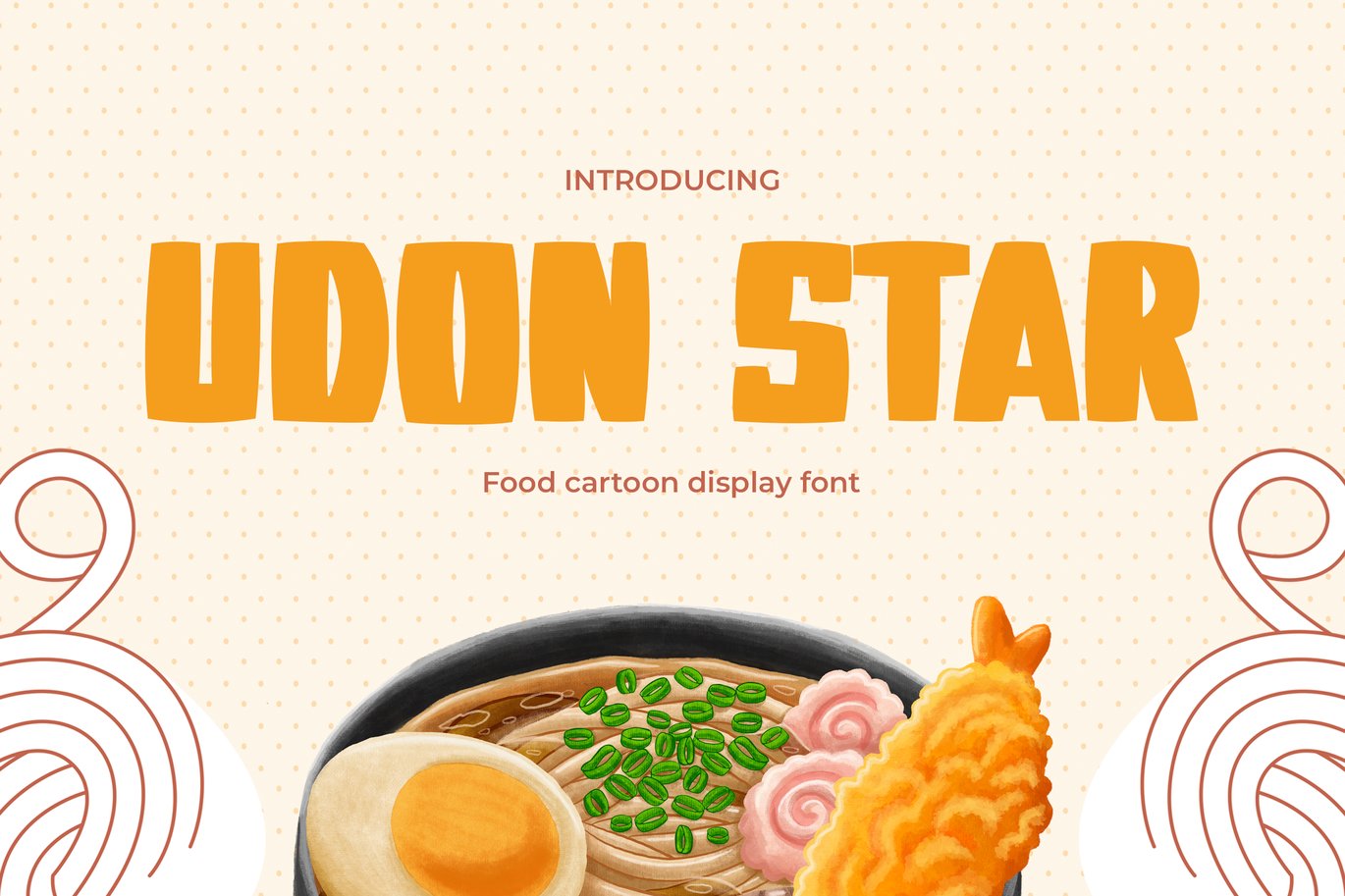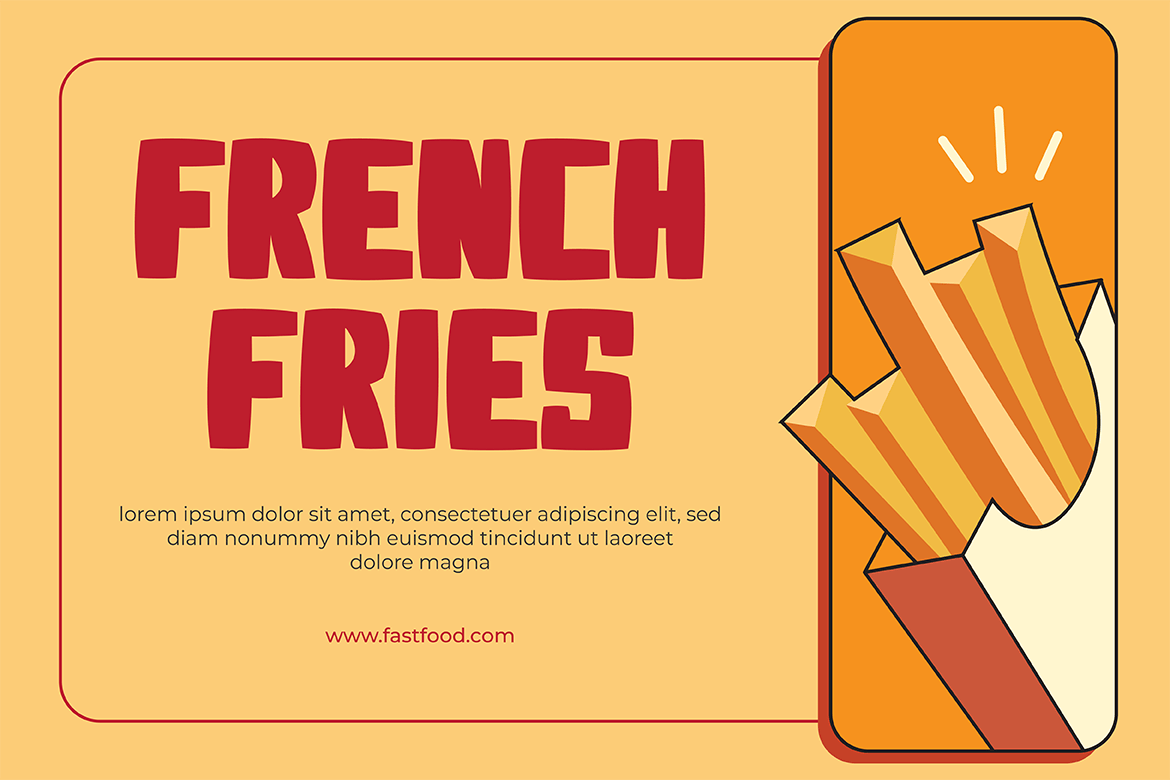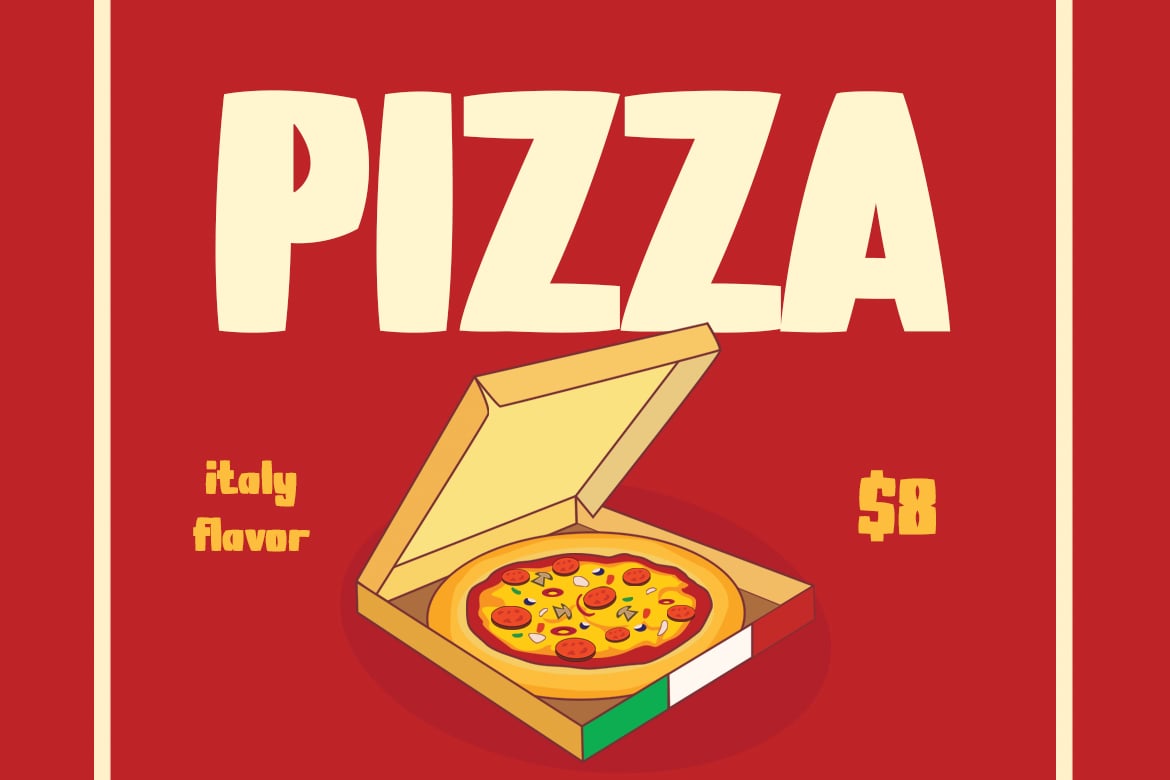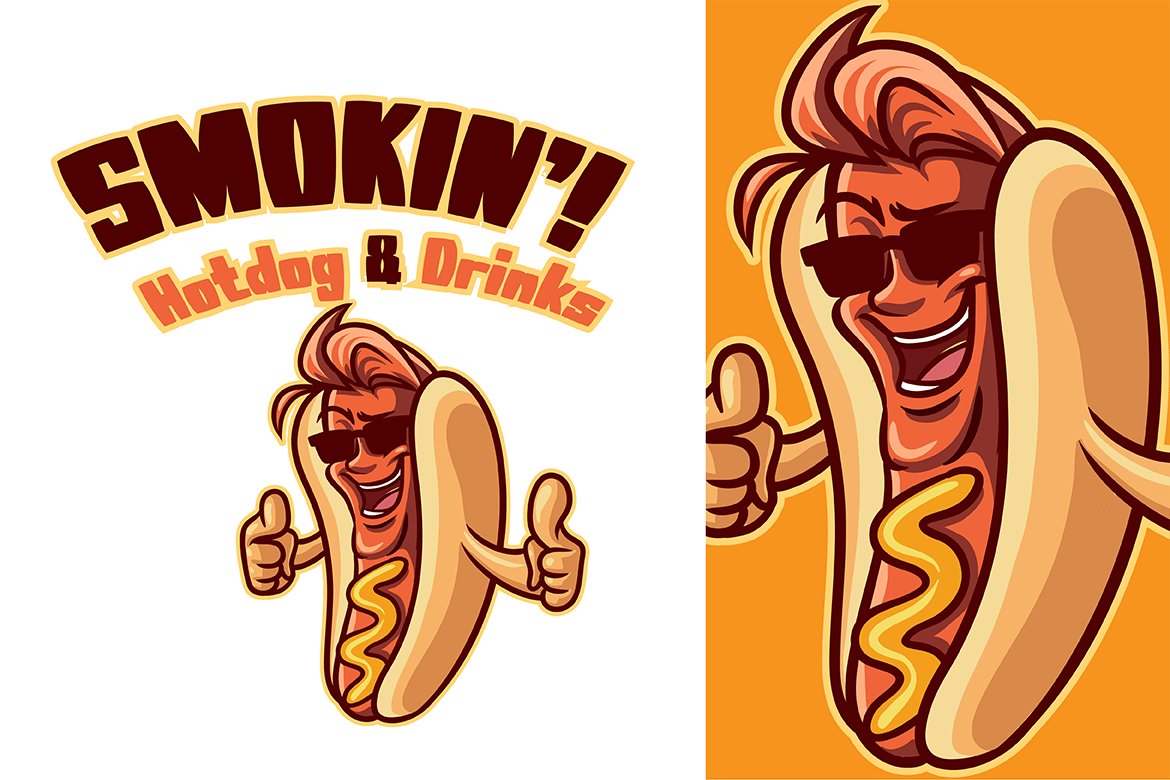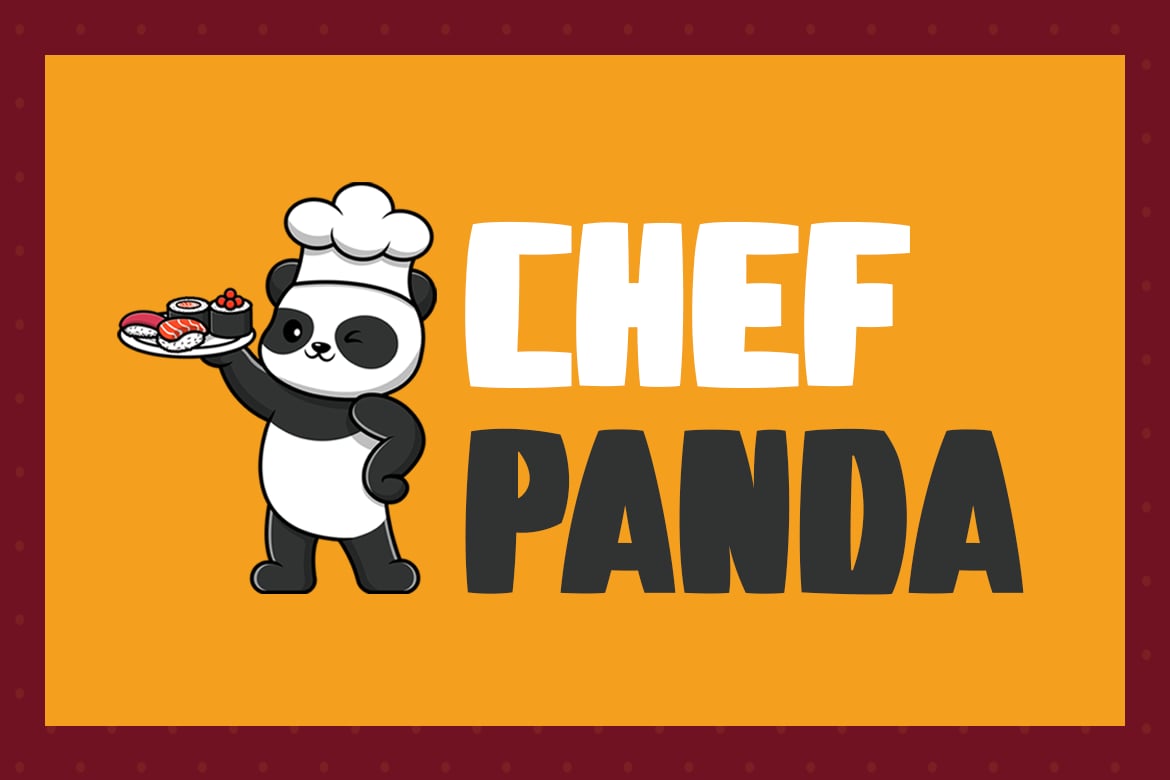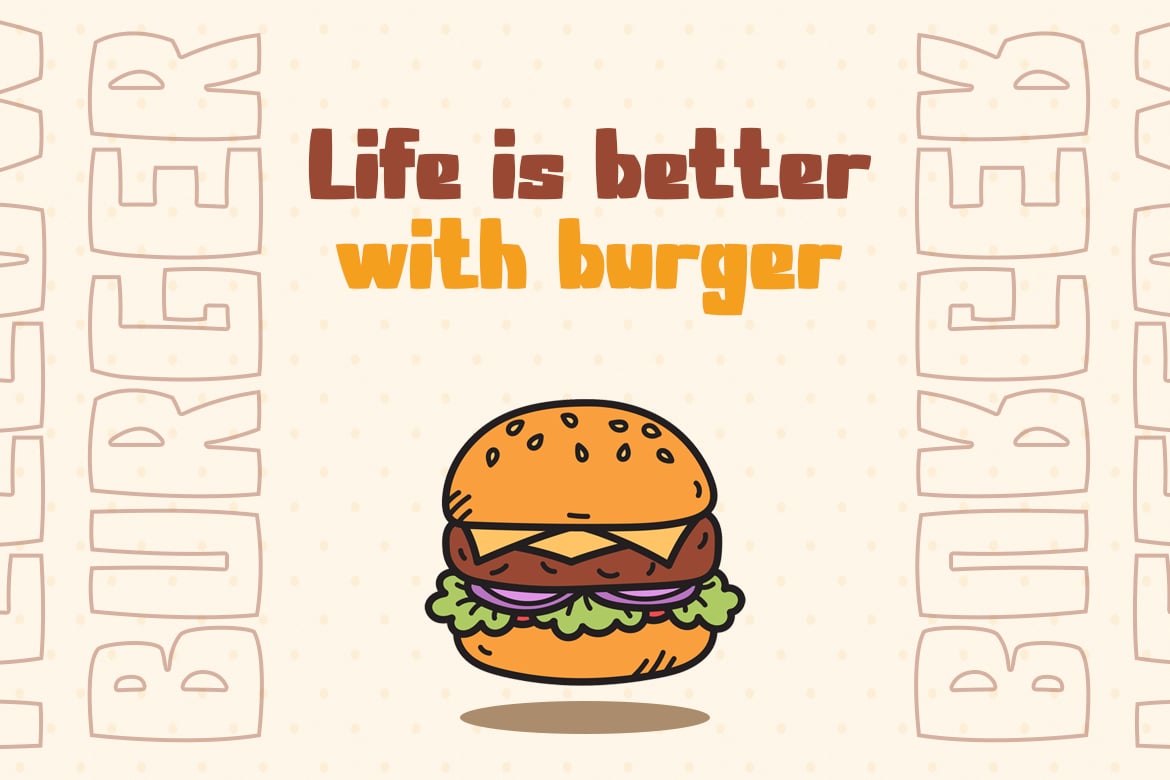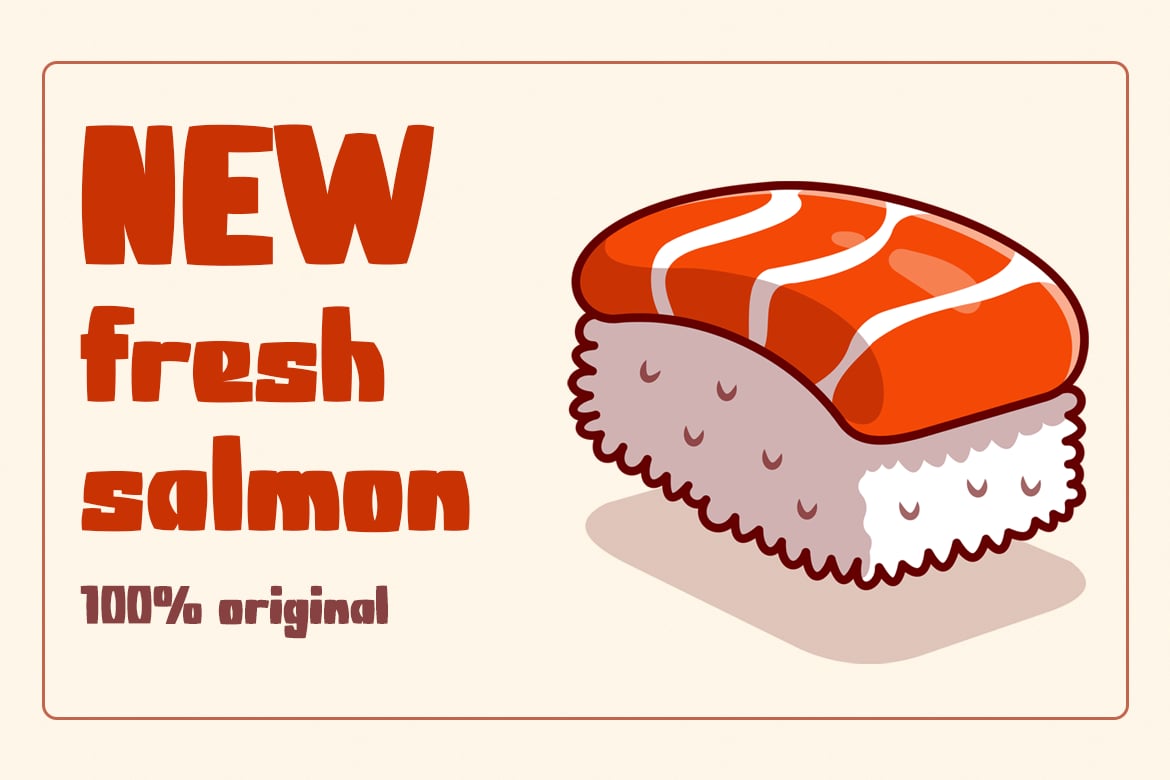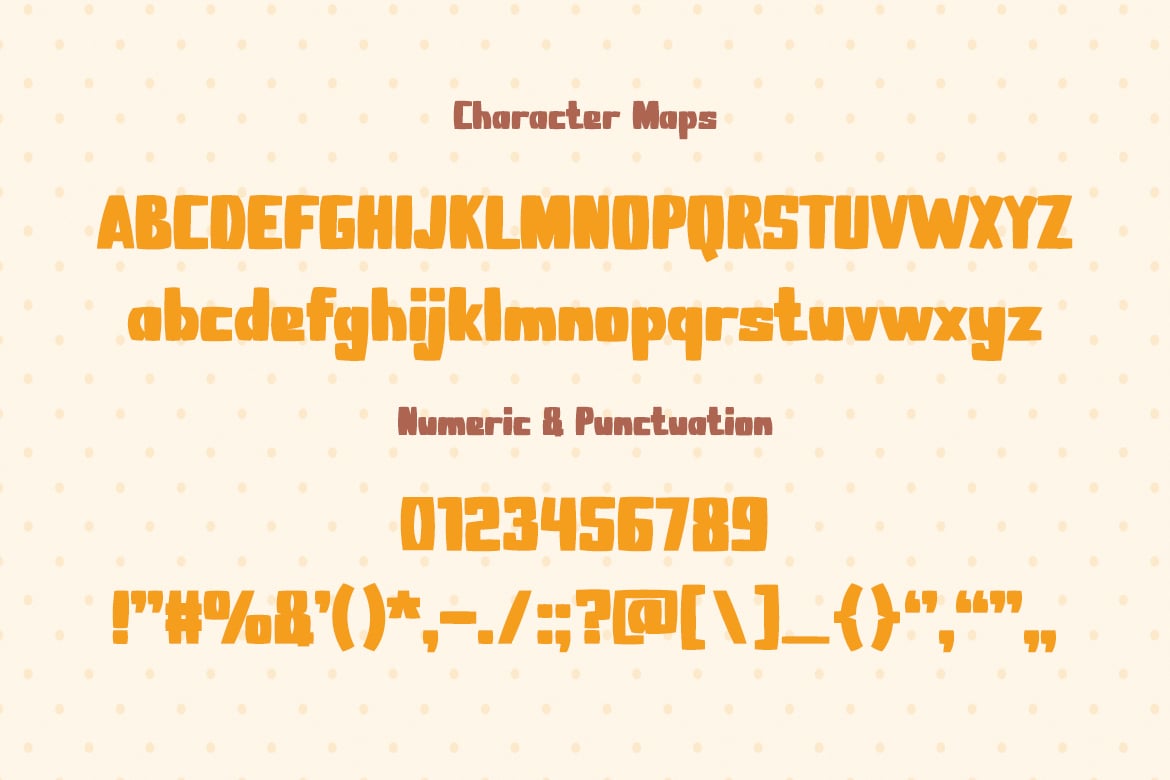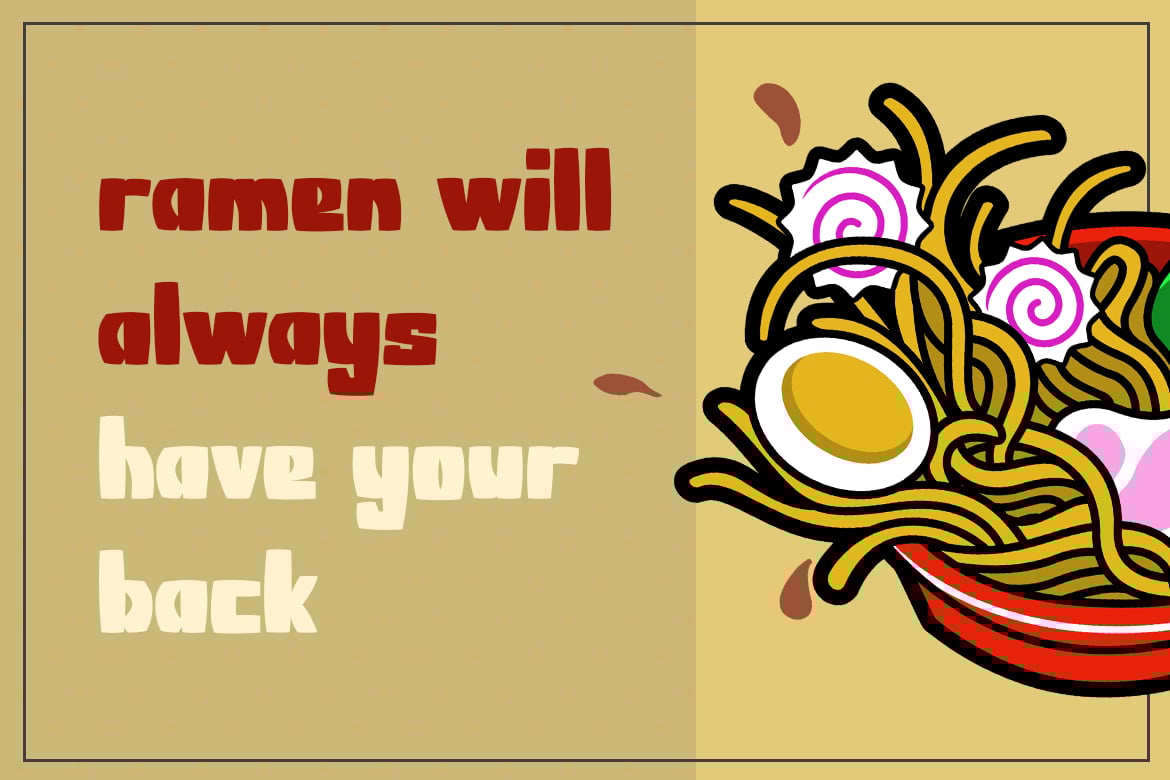
Udon Star – Cute and Captivating Font
Udon Star is a charming and modern font that brings a delightful dose of cuteness to any project. Its playful and cartoon-inspired style is perfect for capturing the hearts of both kids and kids at heart. Whether you’re creating a food brand, kids’ birthday invitations, social media posts, advertisements, or designing a toy, Udon Star adds a touch of whimsy and joy to every design.
With its adorable bubble-like glyphs, Udon Star brings your creations a sense of fun and light-heartedness. It’s like a warm bowl of udon noodles, comforting and irresistibly cute for the soul. Let the charming characters of Udon Star bring a smile to your audience and create a memorable and endearing experience.